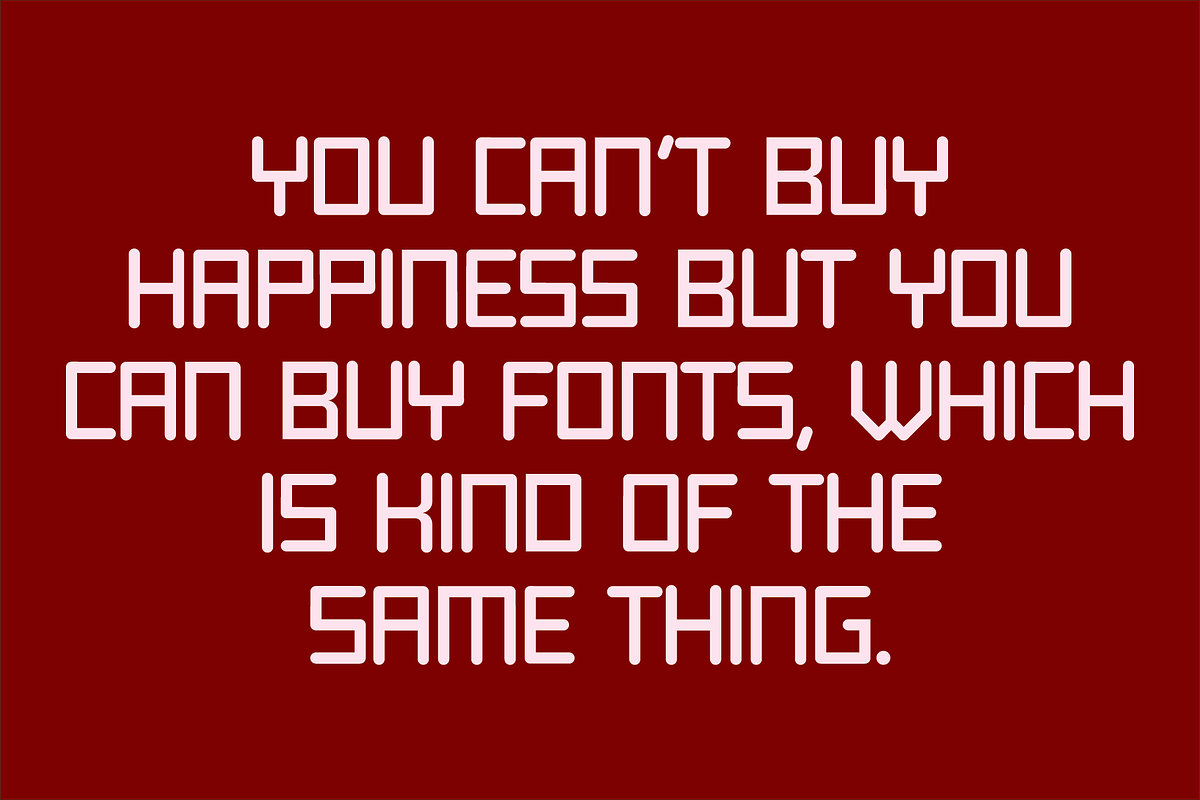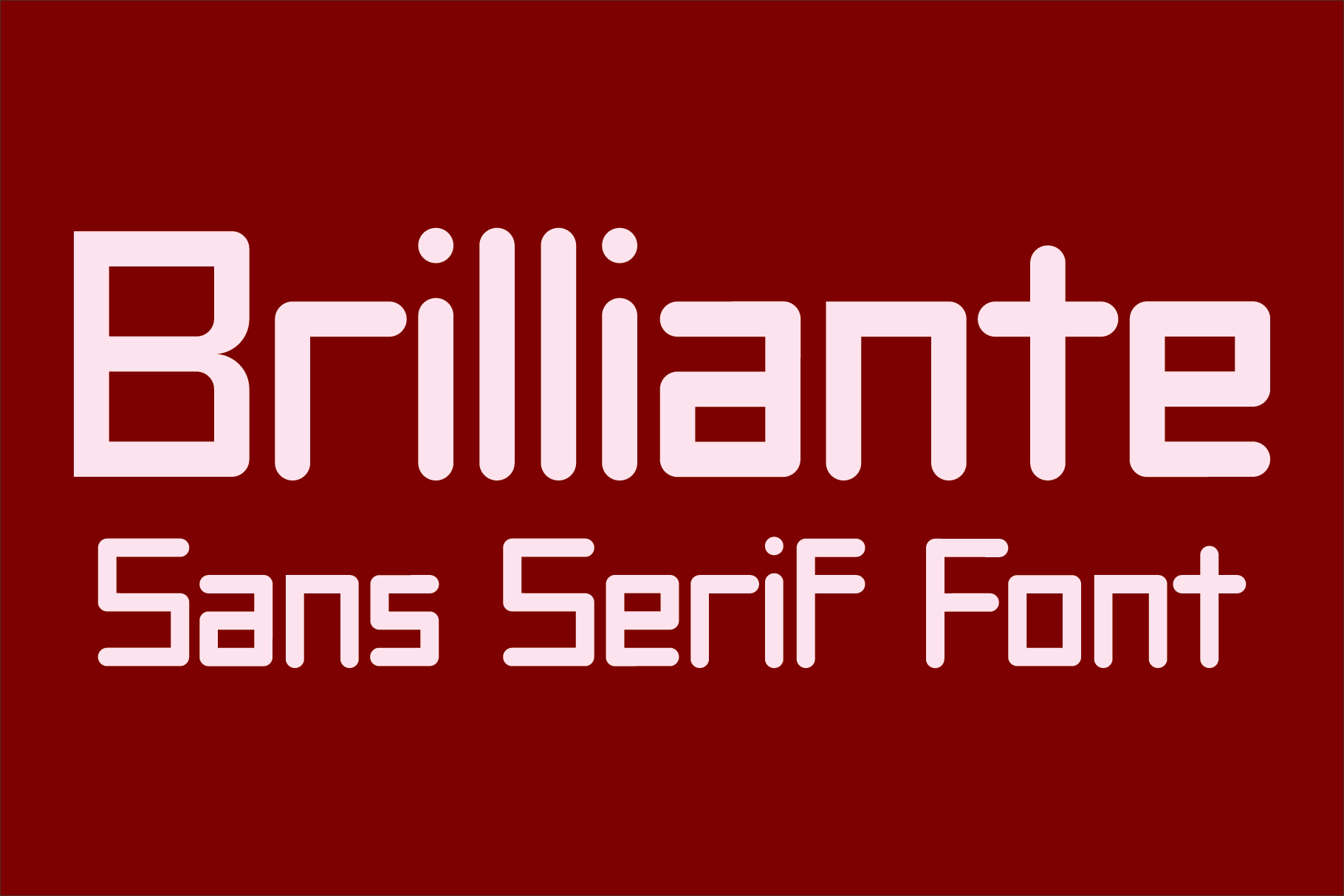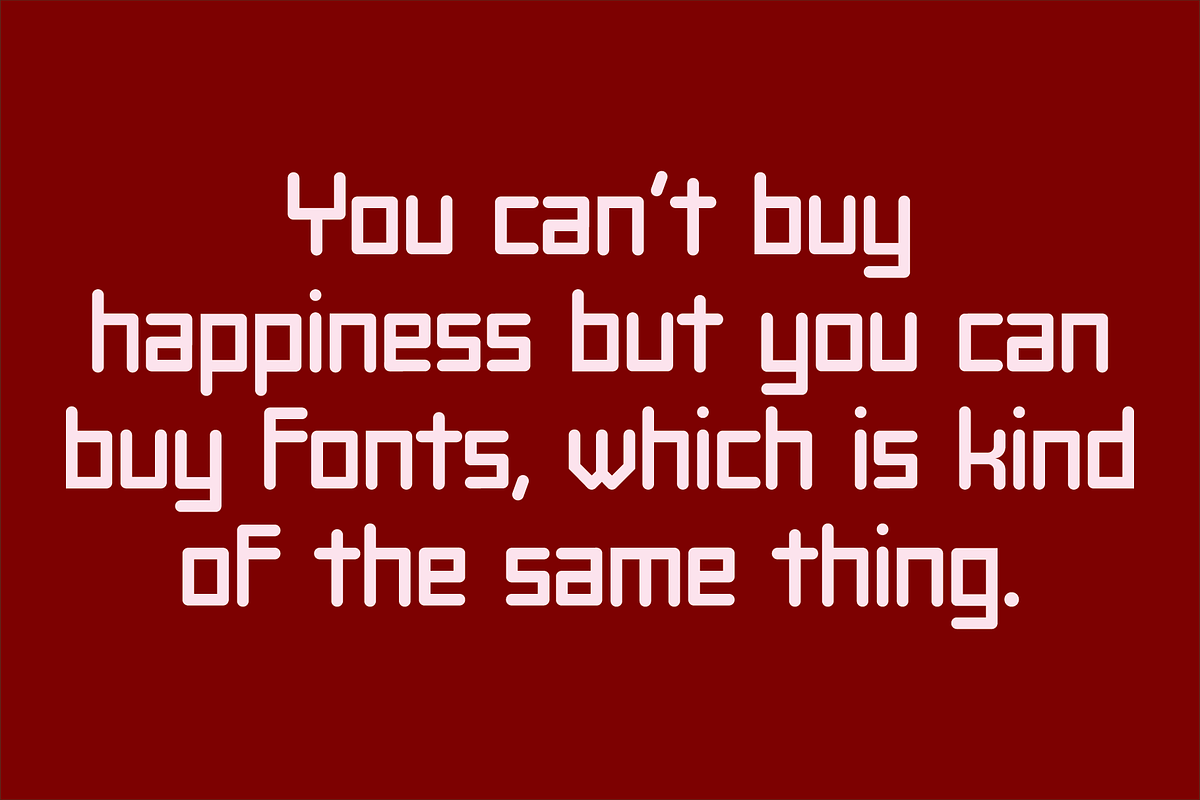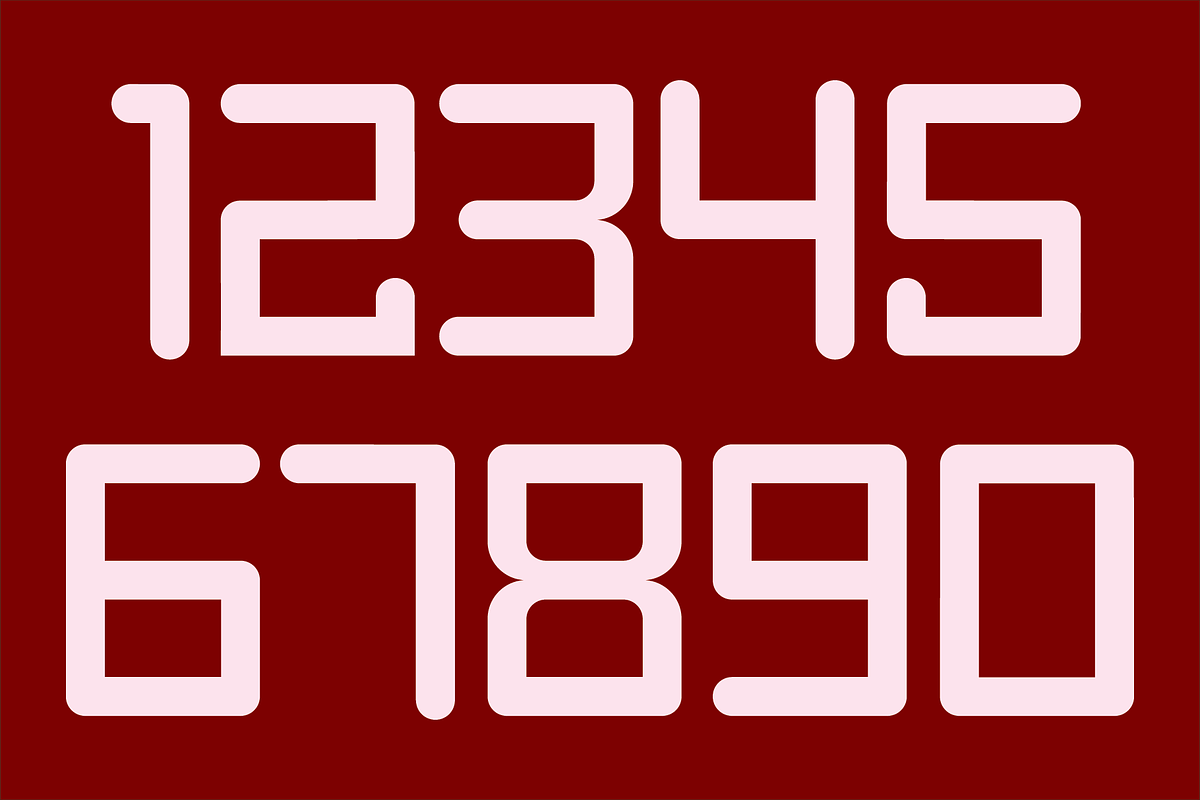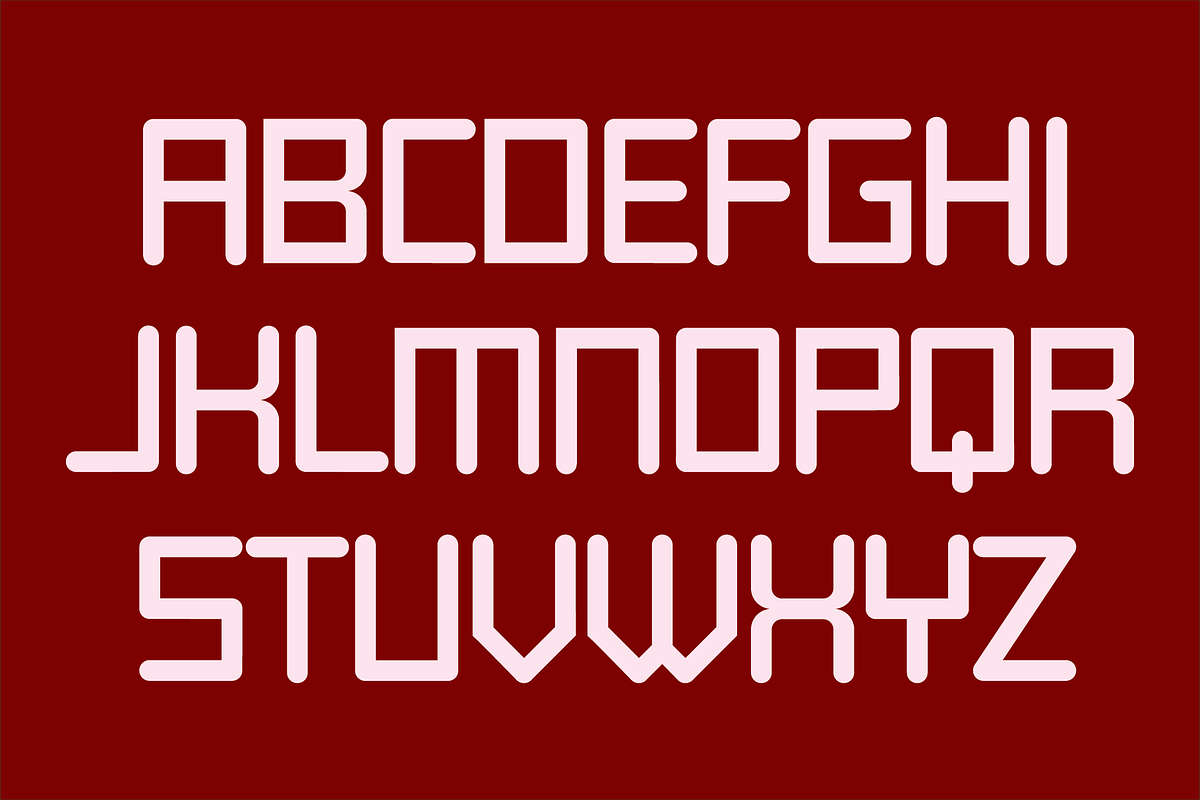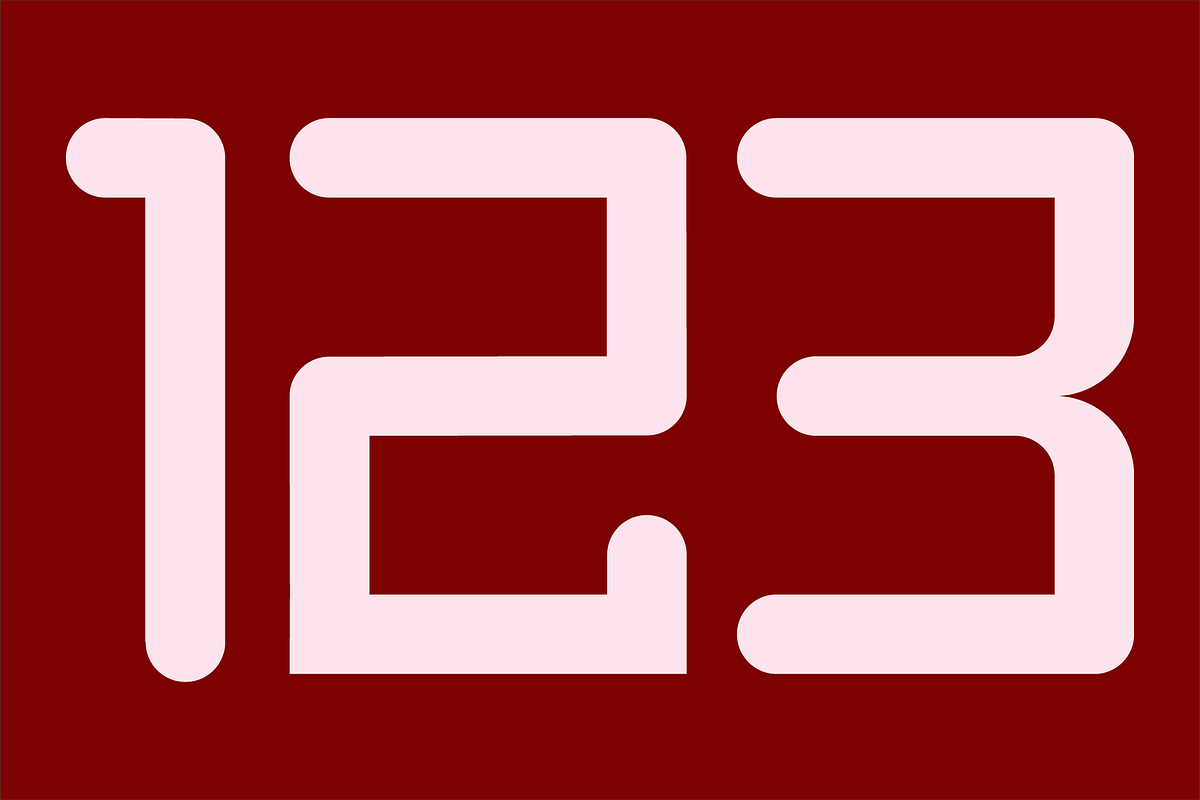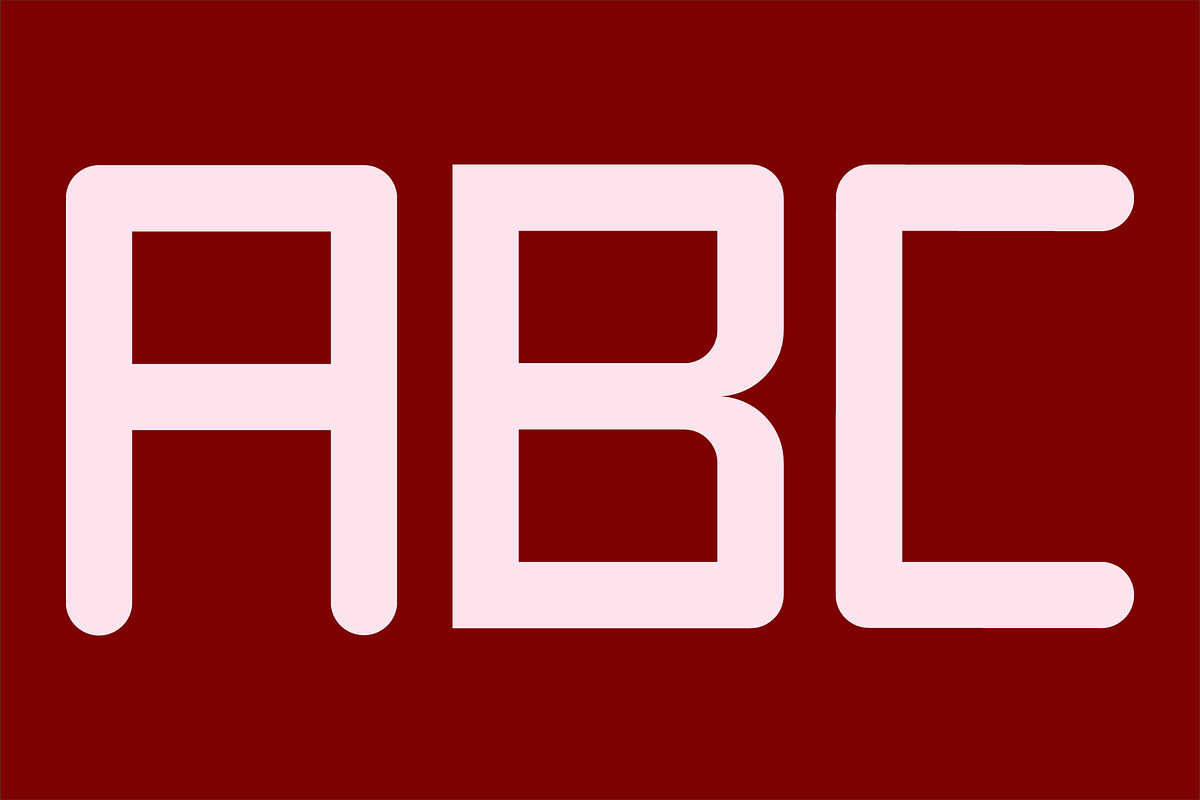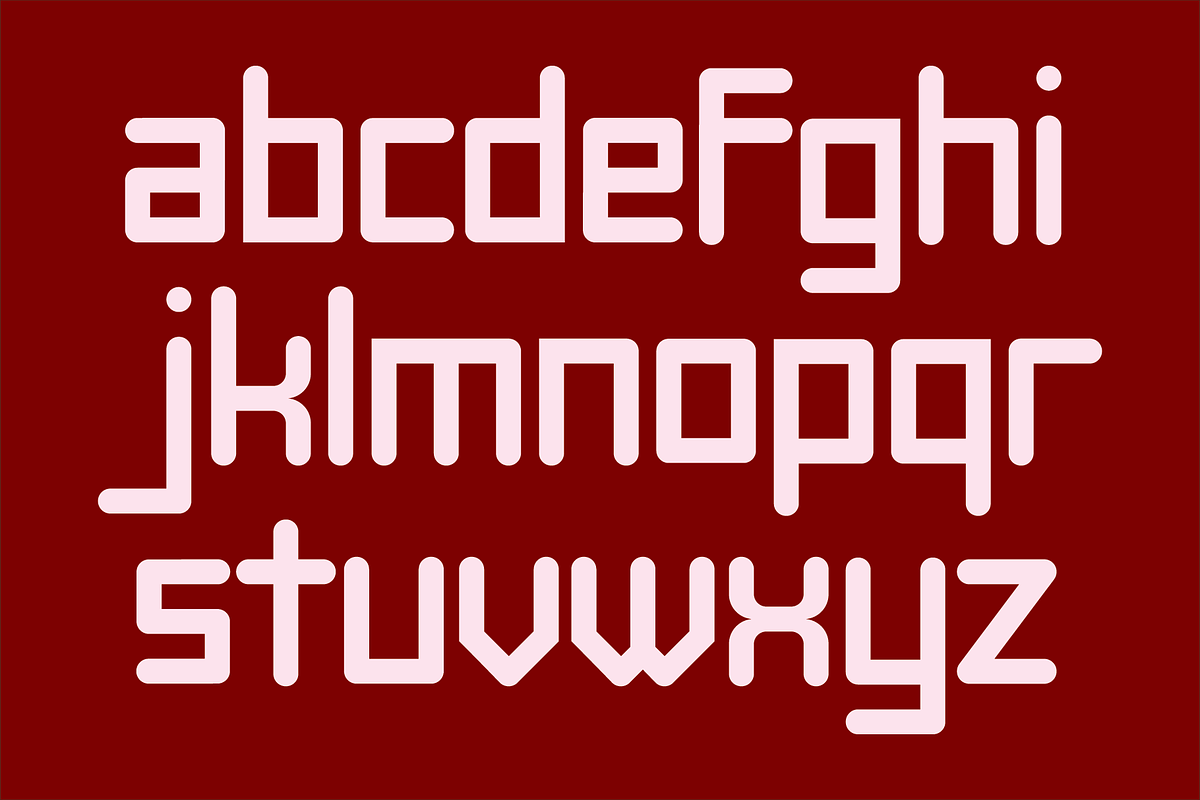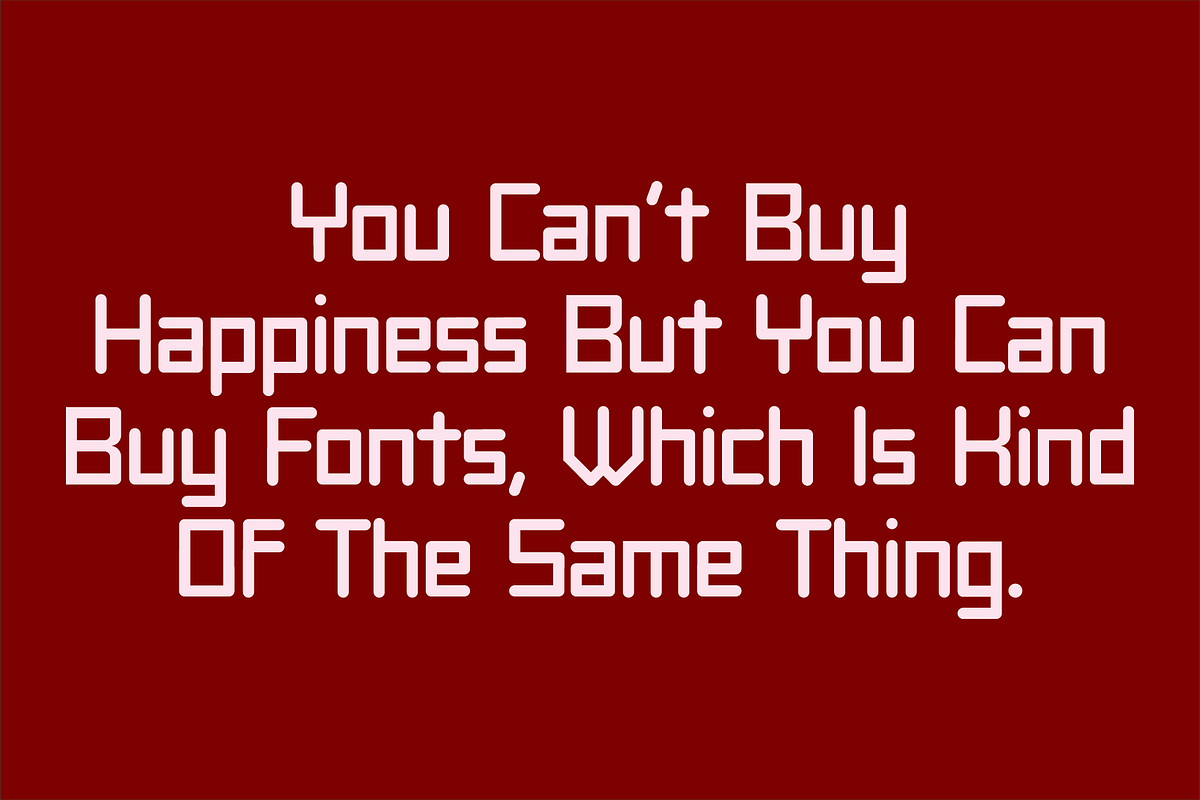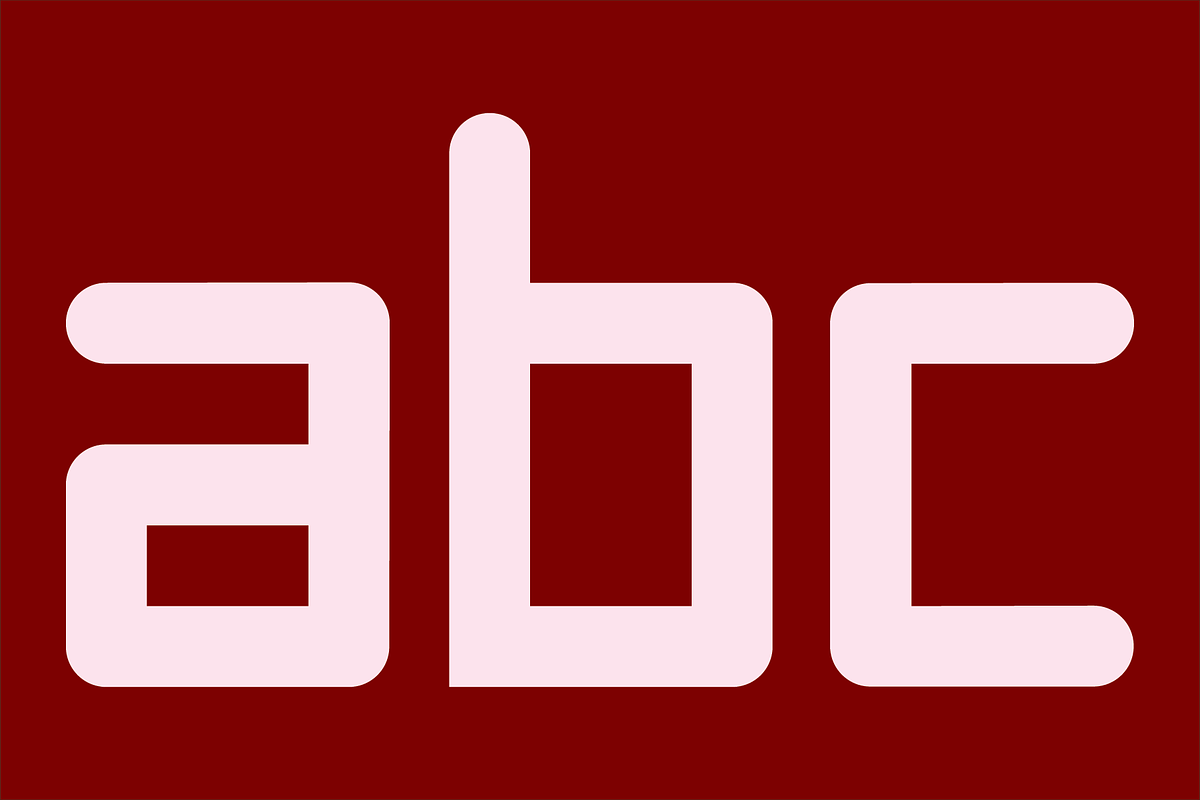
Brilliante - Sans Serif Font
Brilliante is a geometric, uniform stroke, sans serif font with rounded end strokes. It is ideal for headlines, titles, branding and small blocks of text.